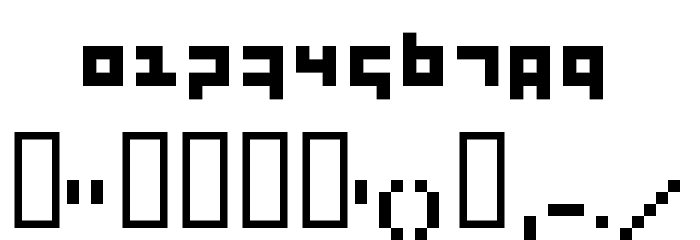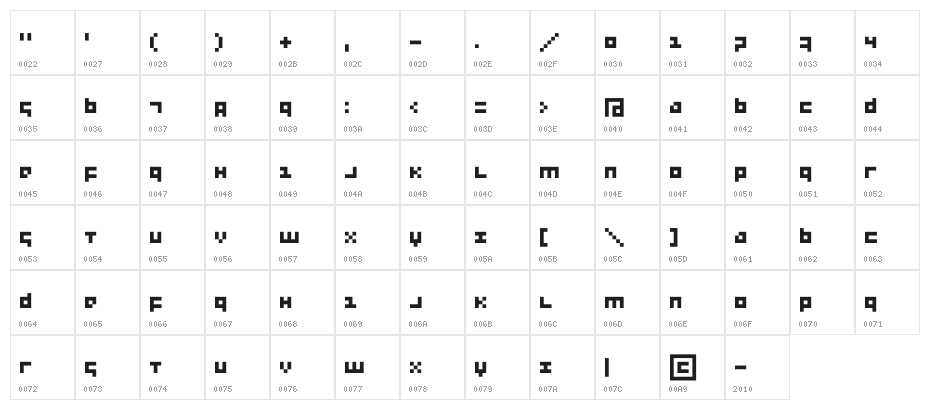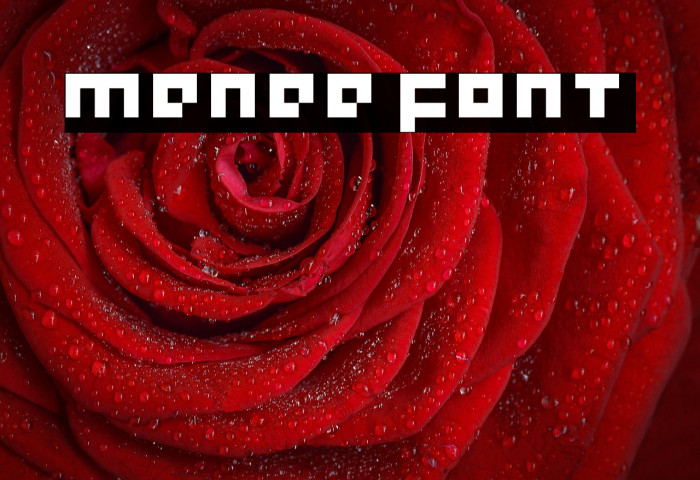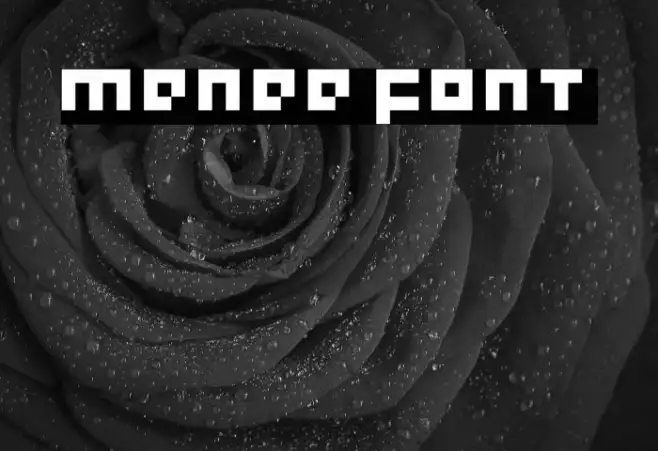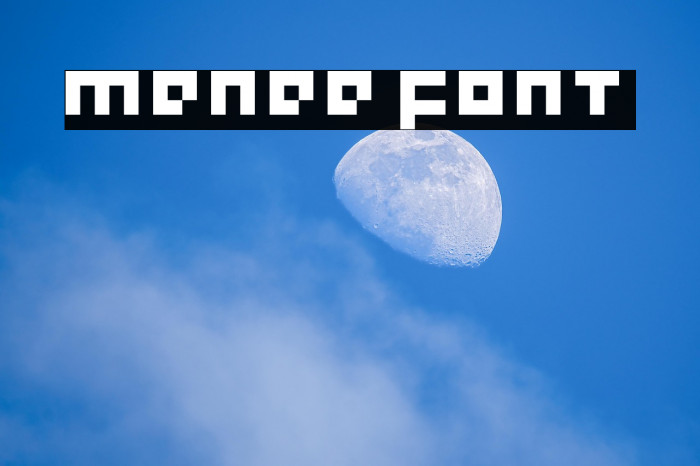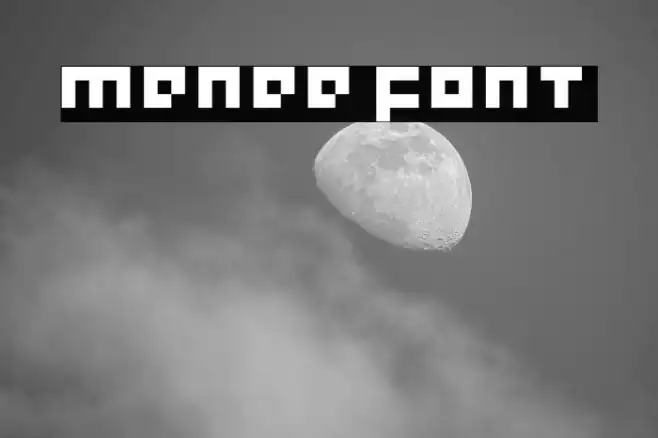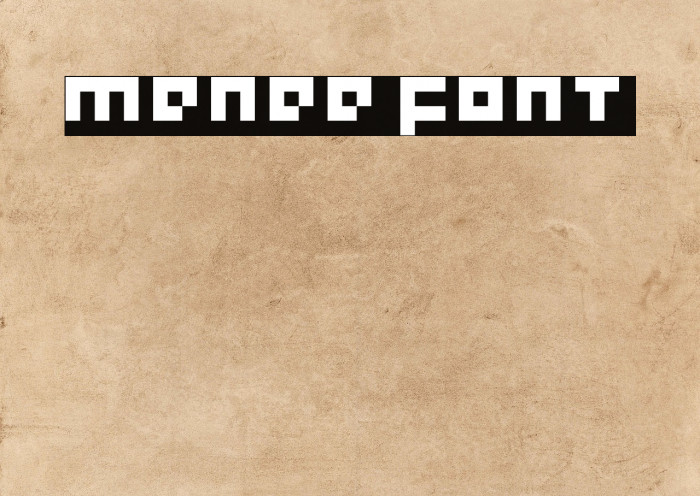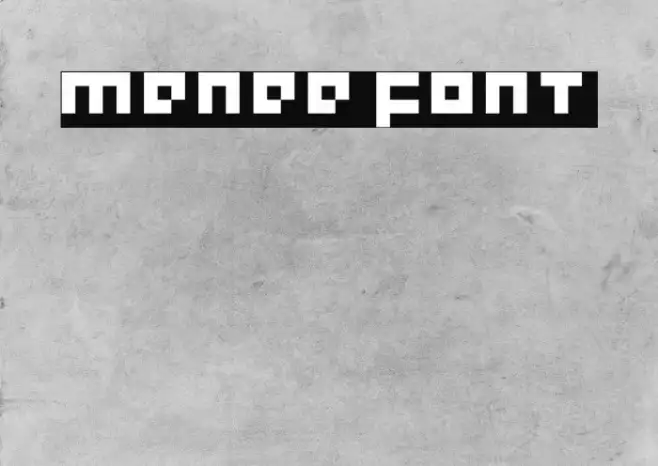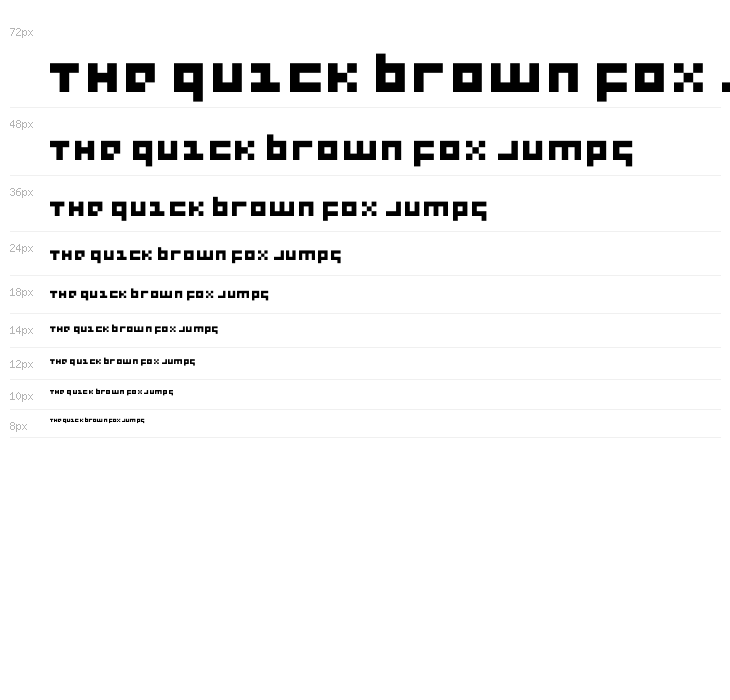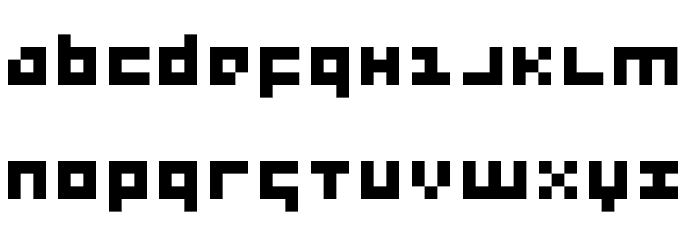
Menee Font
Menee Description
This font features a bold, geometric design with a pixelated, blocky appearance reminiscent of early digital or video game typography. Each character is constructed with uniform square shapes, creating a cohesive and structured look. The font maintains a consistent weight throughout, emphasizing its boldness and clarity. Its simplistic and straightforward design makes it highly legible, even at smaller sizes. The characters are evenly spaced, contributing to a balanced and harmonious text flow. This style is particularly effective for projects that require a retro or tech-inspired aesthetic.
| Proposed Projects | Ideal for video game graphics, tech-themed posters, digital art, and retro-style branding. |